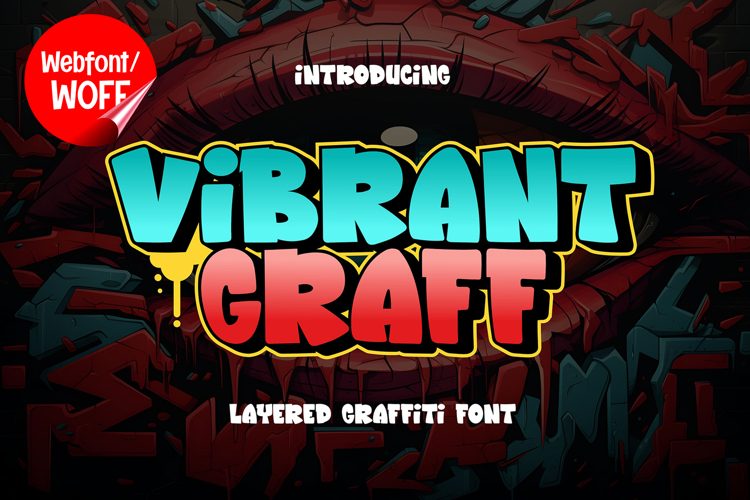
Vibrant Graff | 3D Layered Graffiti Webfont for Bold Website
Vibrant Graff is a 3D layered graffiti webfont designed to deliver bold visual impact and energetic urban style for modern website design. With its dimensional letterforms and layered construction, this font creates a striking depth effect that instantly captures attention. Inspired by street art and graffiti culture, Vibrant Graff brings a dynamic and expressive look that stands out in any digital layout.
Vibrant Graff includes a full set of uppercase characters designed with bold shapes and layered details. The 3D effect gives each letter a sense of volume and depth, making it perfect for headlines, banners, hero sections, and featured content. These strong letterforms help create a clear visual hierarchy, ensuring that important messages stand out and draw user attention.
In addition to letters, the font includes numbers and punctuation, allowing for flexible use across various parts of a website. It works well for promotional text, event details, pricing displays, and navigation elements. Each character maintains the same layered graffiti style, ensuring consistency and cohesion throughout the design.
With multilingual support, Vibrant Graff offers a wide range of accented characters, making it suitable for international websites and global audiences. This allows content to be presented clearly across different languages while maintaining the same bold and expressive visual identity.
The 3D layered graffiti style makes Vibrant Graff especially effective for urban-themed websites, streetwear brands, music platforms, gaming interfaces, and creative portfolios. Its dimensional appearance adds depth and movement, helping designs feel more immersive and visually engaging. The graffiti influence also brings authenticity and a strong street-inspired character to the overall look.
Despite its bold and complex style, Vibrant Graff is designed with readability in mind. The spacing and structure of each character are carefully balanced to ensure clarity, particularly in display sizes. This makes it suitable for impactful headings and short text elements without compromising legibility.
Vibrant Graff is a webfont that combines graffiti aesthetics with layered dimensional design. Its bold shapes, 3D depth, and urban influence create a powerful visual statement that enhances modern website design. For projects that require a strong, energetic, and eye-catching typographic style, Vibrant Graff offers a distinctive and effective solution.